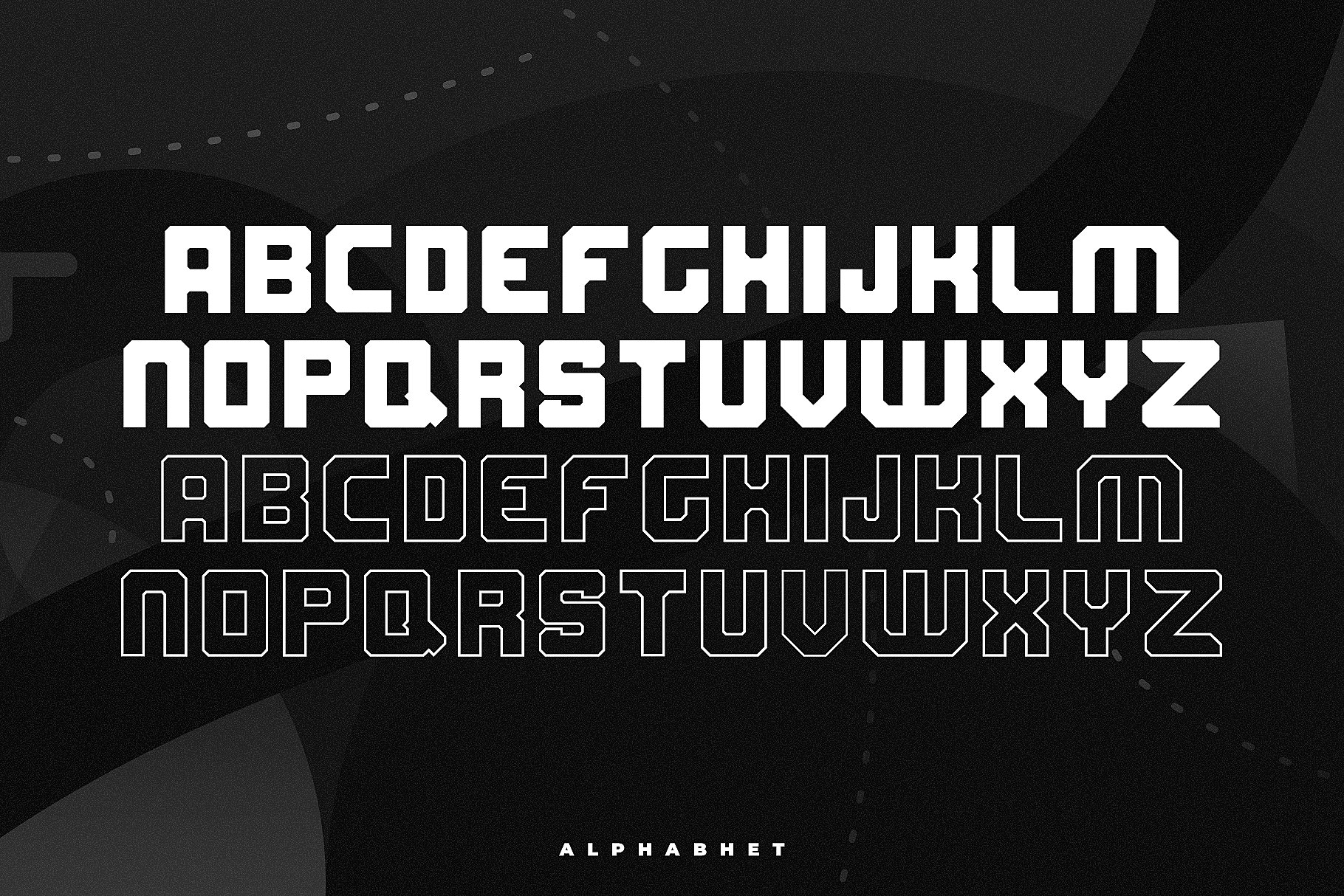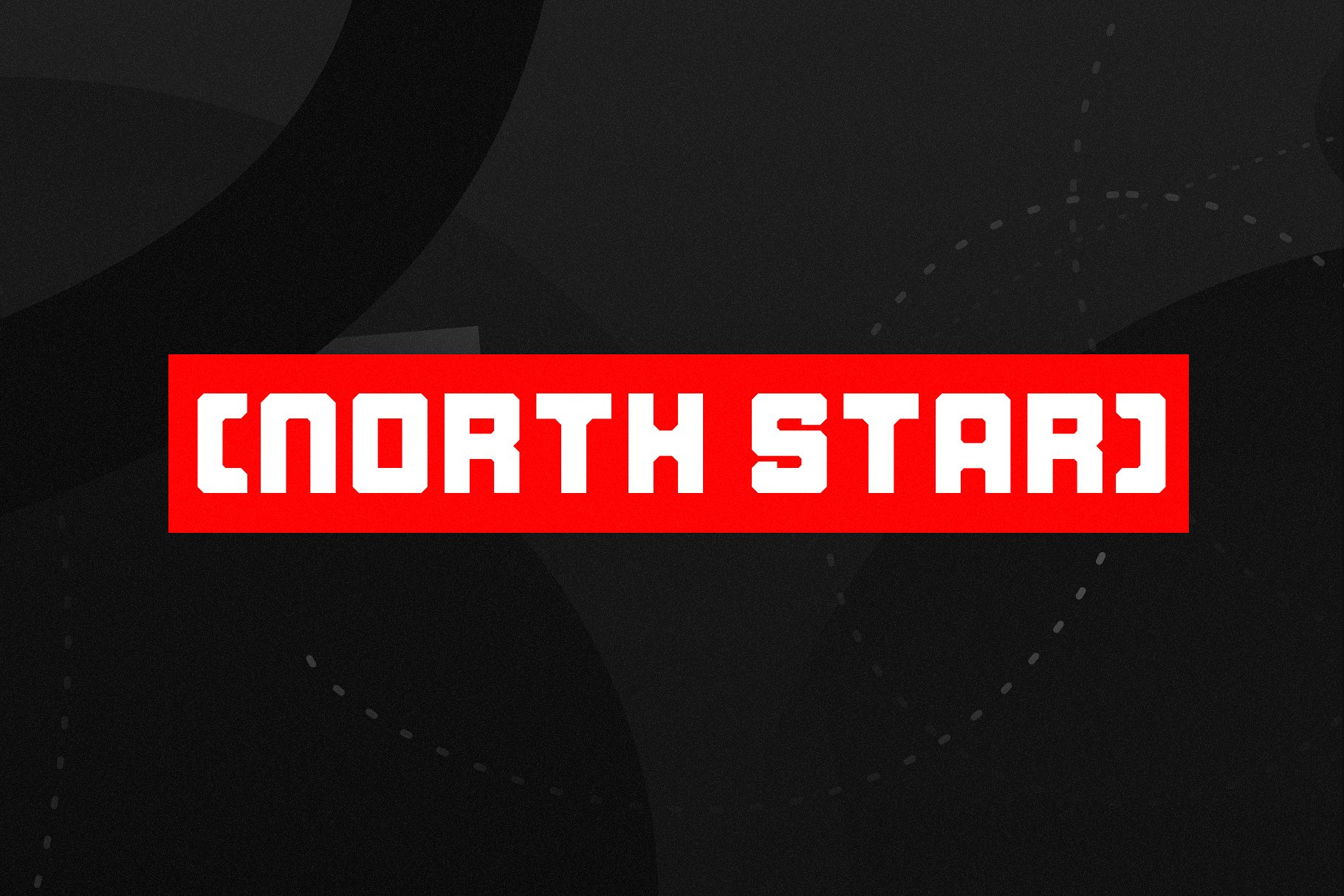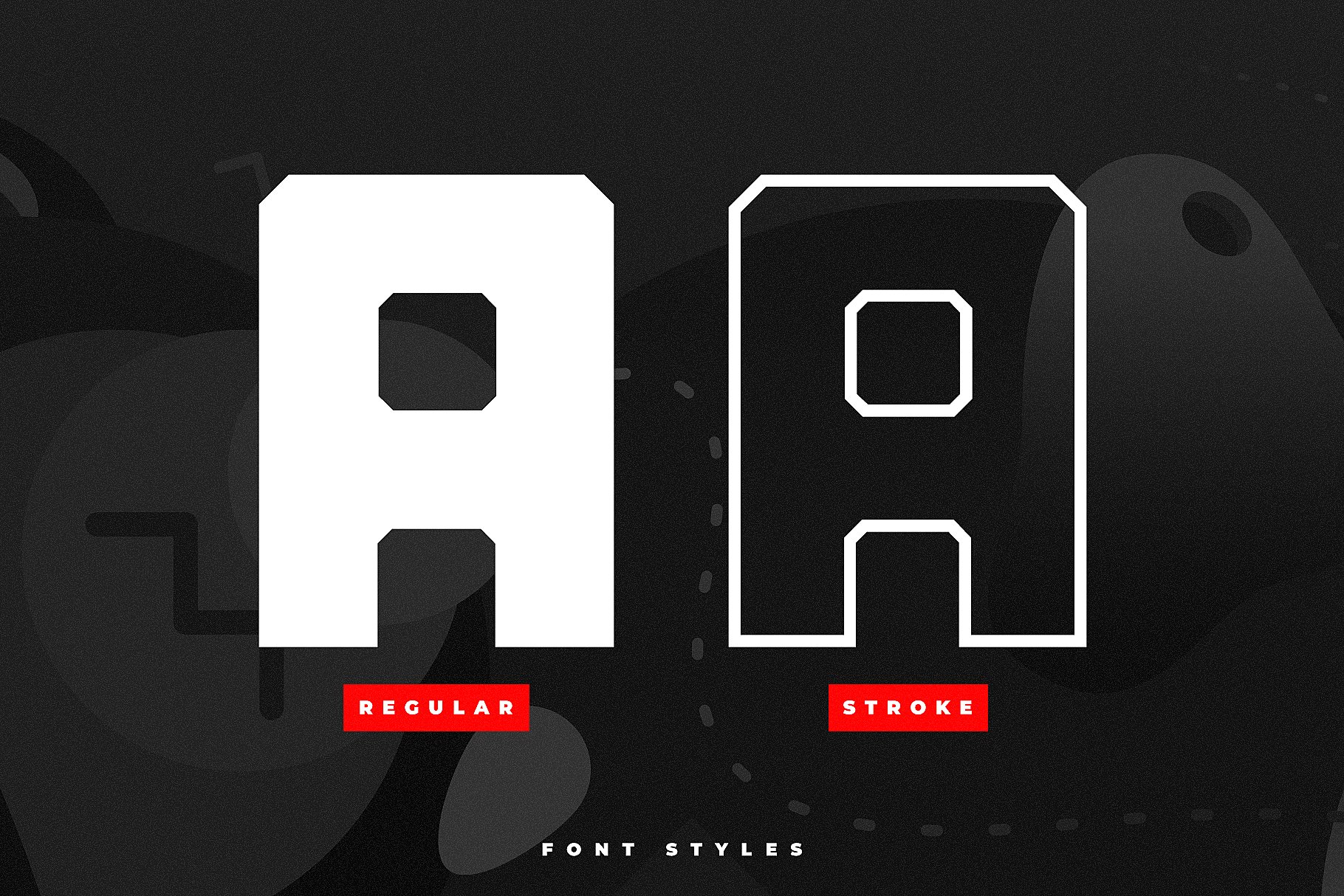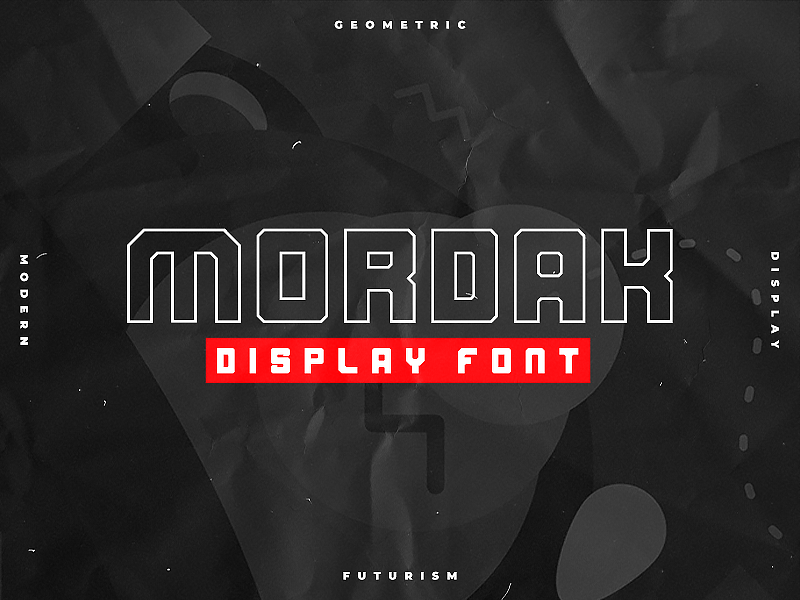
Mordak Typeface
Hi designer. This is an ultra condensed sans serif display typeface with geometric forms, it can be used in many creative ways. Introducing Mordak Font. Mordak is a modern, geometric, futurism display font with letters, numbers and couple of symbols. The idea behind the font is based on space or sci fi. So these can easily be used for designs related to modernism such as androids or robots, which gives the whole design a sci fi feel.